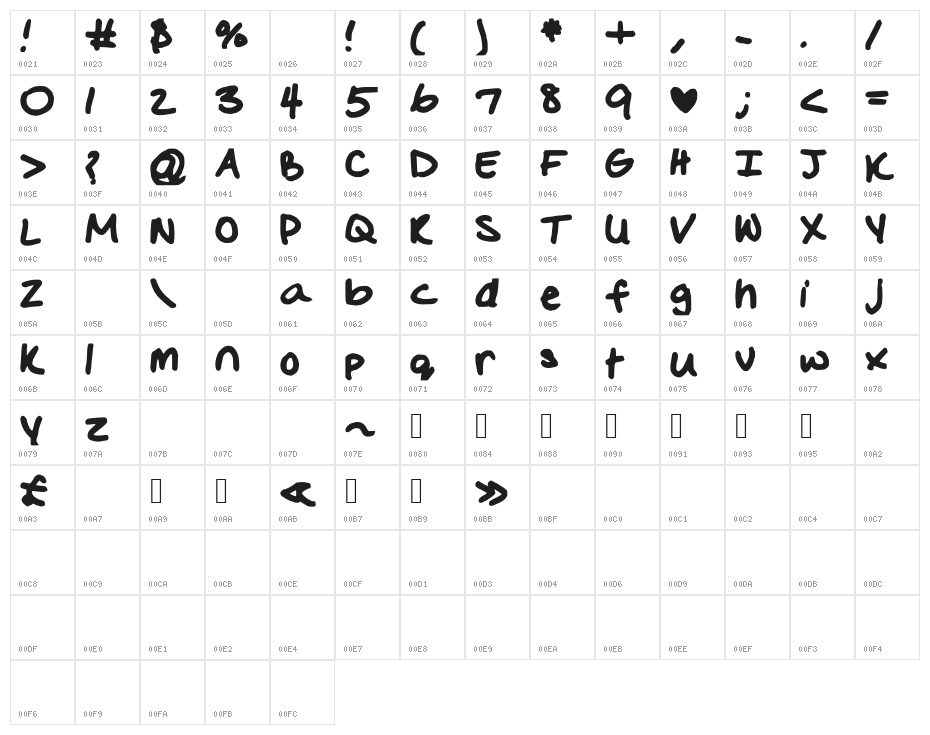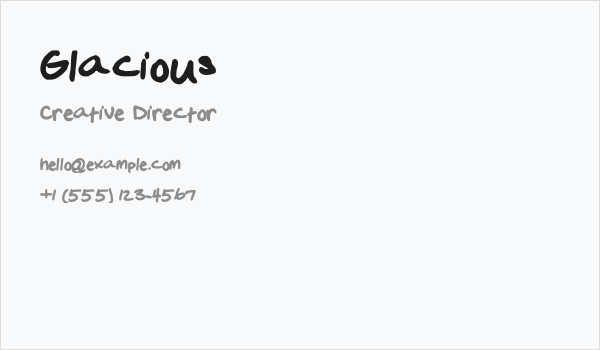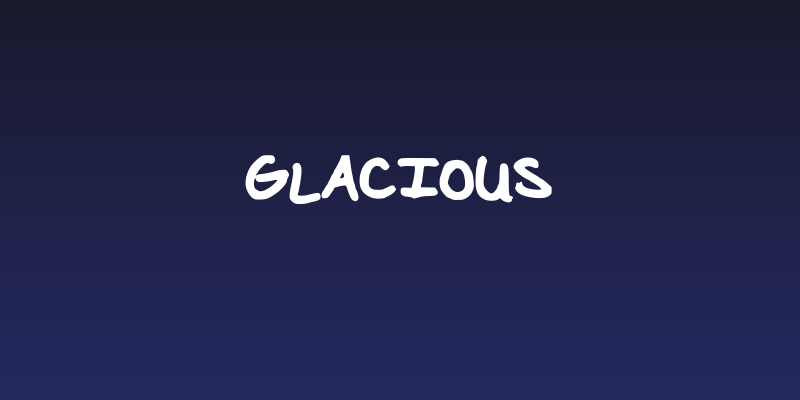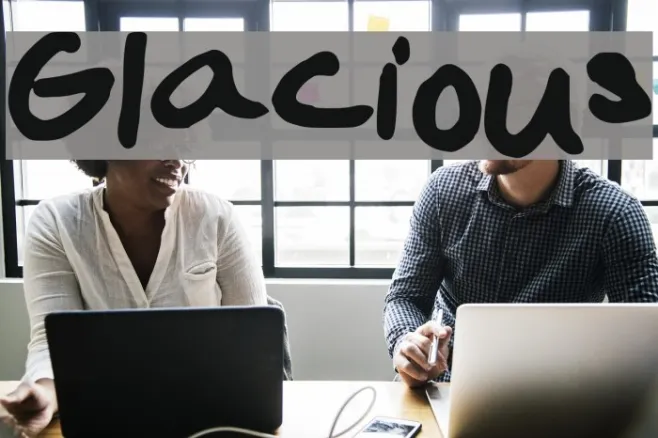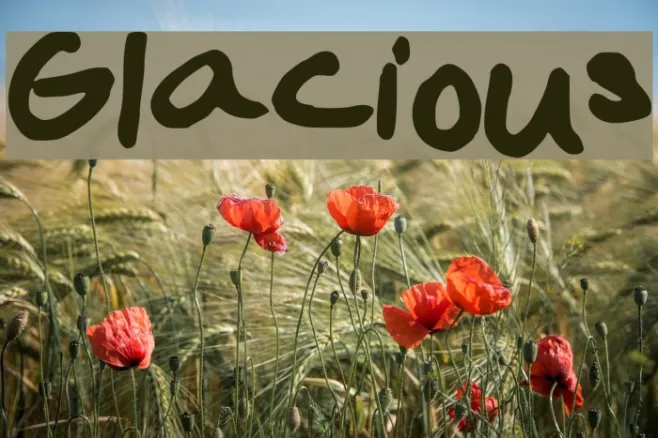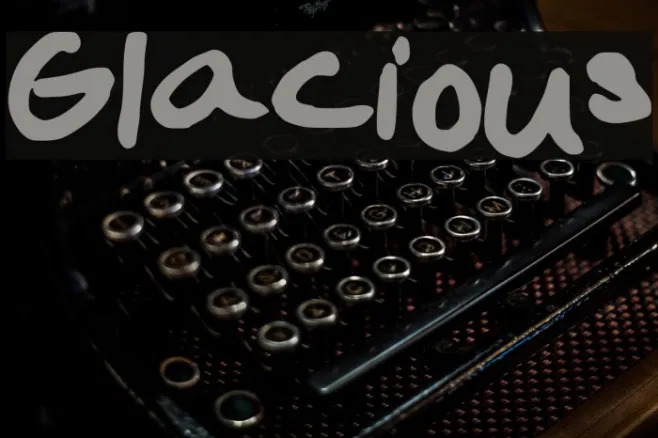
Glacious Font
Glacious Description
This font features a bold, handwritten style with a playful and casual appearance. The characters are rounded and slightly irregular, giving it a personal and informal touch. The uppercase and lowercase letters maintain a consistent style, with a noticeable thickness that adds to its boldness. The numbers and special characters follow the same aesthetic, ensuring uniformity across all glyphs. This font is ideal for projects that require a friendly and approachable look, such as children's books, casual invitations, or creative branding.
| Use Case | Headlines, Logos, Informal text. |
| Proposed Projects | Children's books, casual invitations, creative branding, social media graphics. |